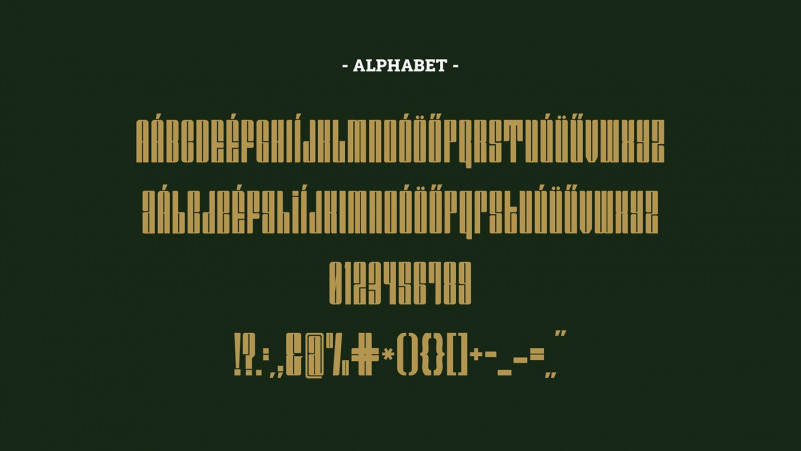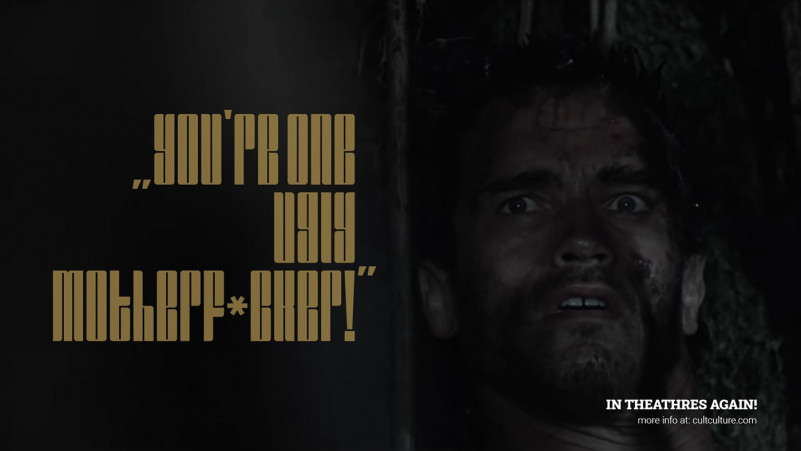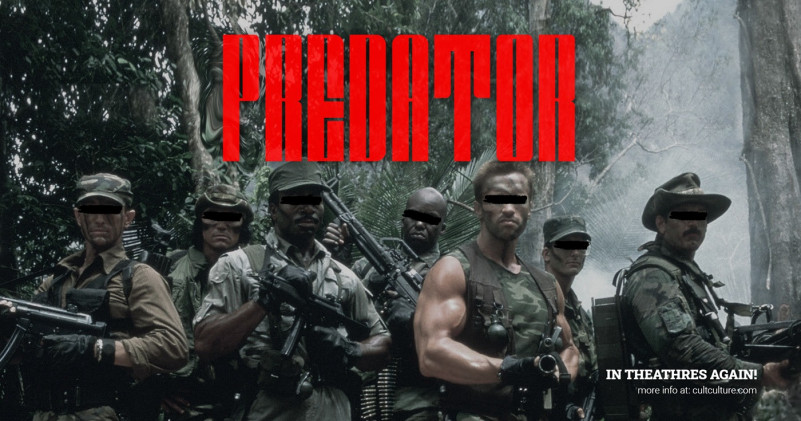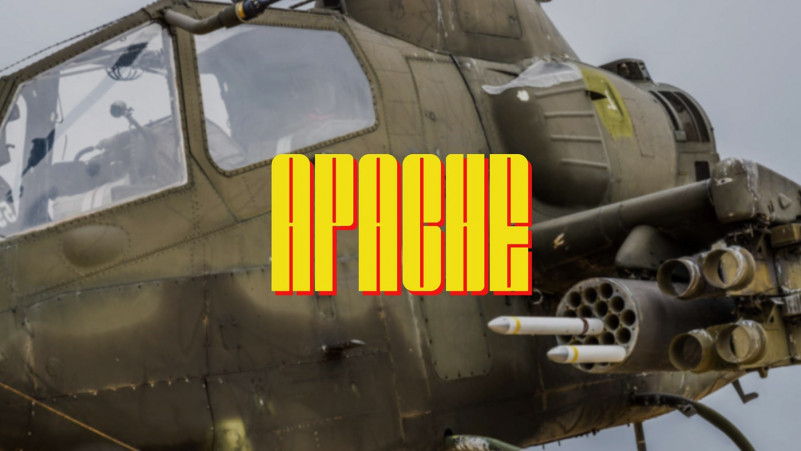
Apache Display Font
This is free display font with a retro and vintage theme. Retropia would perfect for photography, branding, typography, social media post, advertisement, and special events or anything that need vintage.